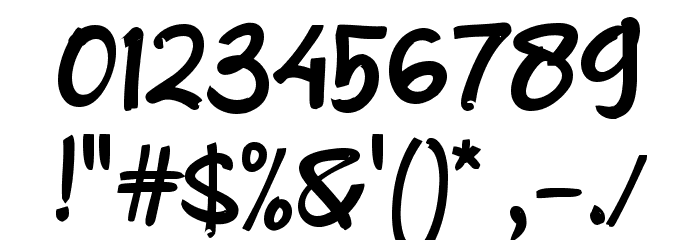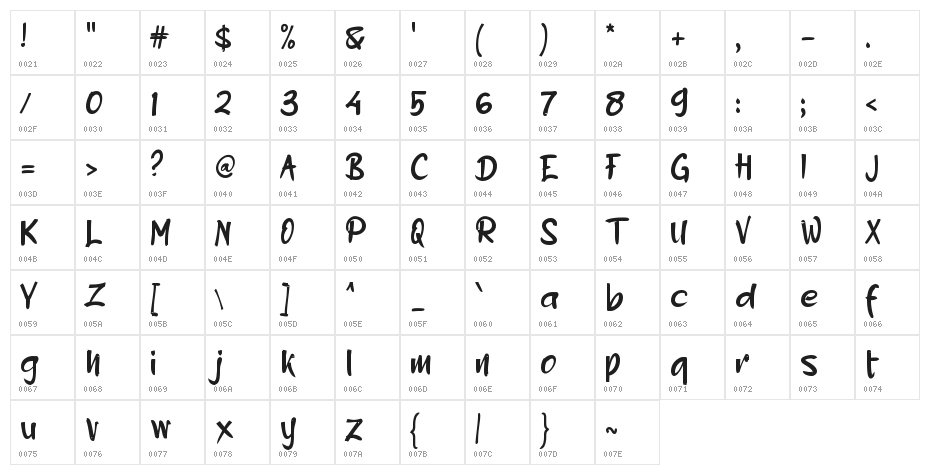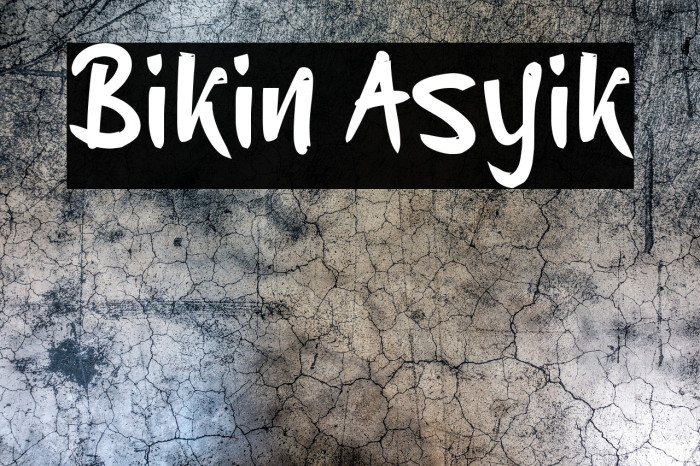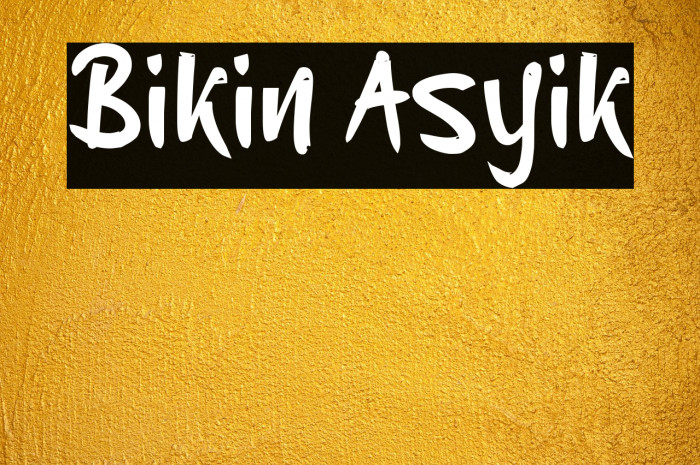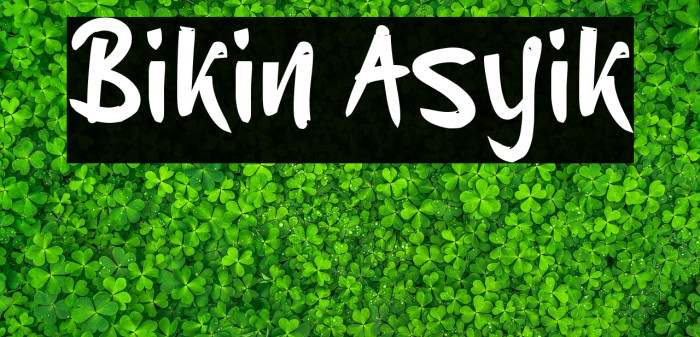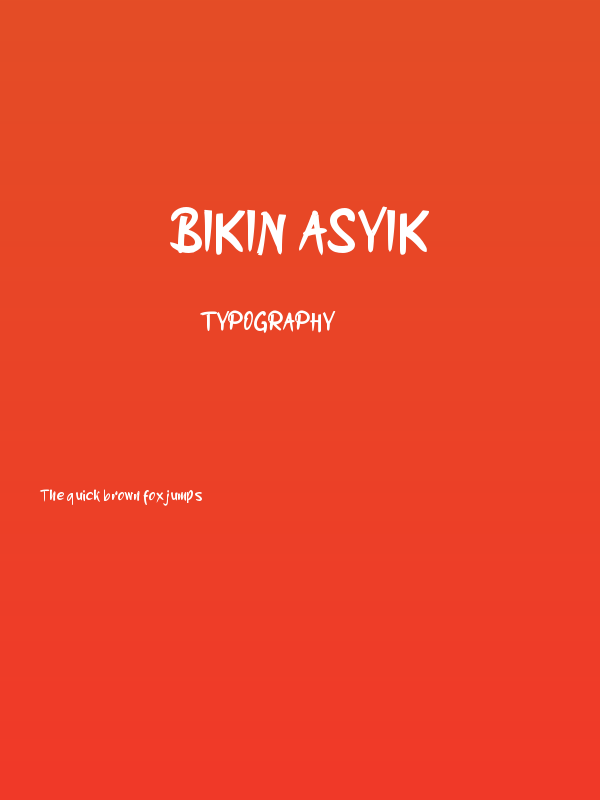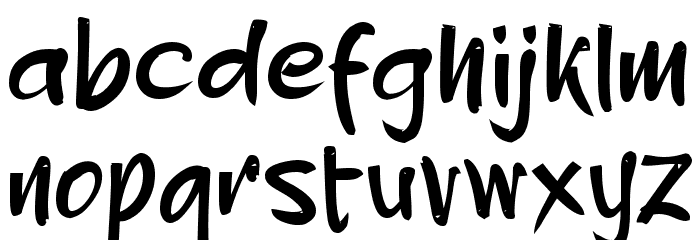
Bikin Asyik Font
Bikin Asyik Description
This font features a playful and energetic style with a handwritten appearance. The letters are bold and slightly irregular, giving it a casual and informal feel. The strokes are thick and consistent, with a medium contrast that adds to its dynamic look. The characters are well-spaced, allowing for easy readability while maintaining a lively aesthetic. This font includes a full set of uppercase and lowercase letters, numbers, and a variety of special characters, making it versatile for various design needs.
| Proposed Projects | Ideal for projects that require a fun and informal touch, such as children's books, greeting cards, posters, and social media graphics. |